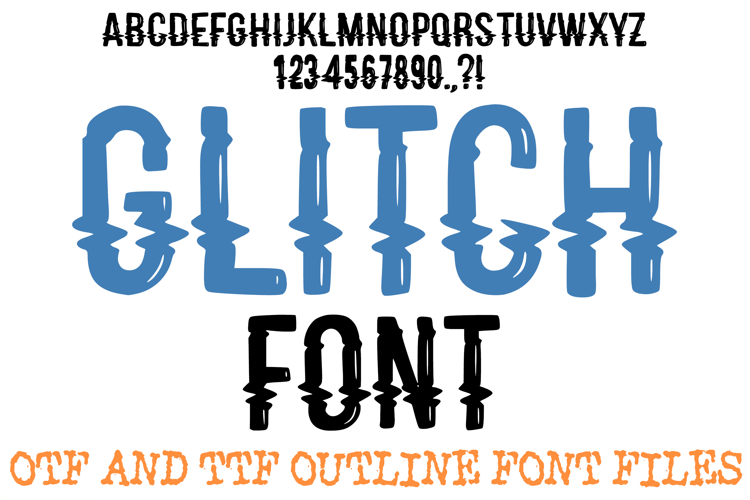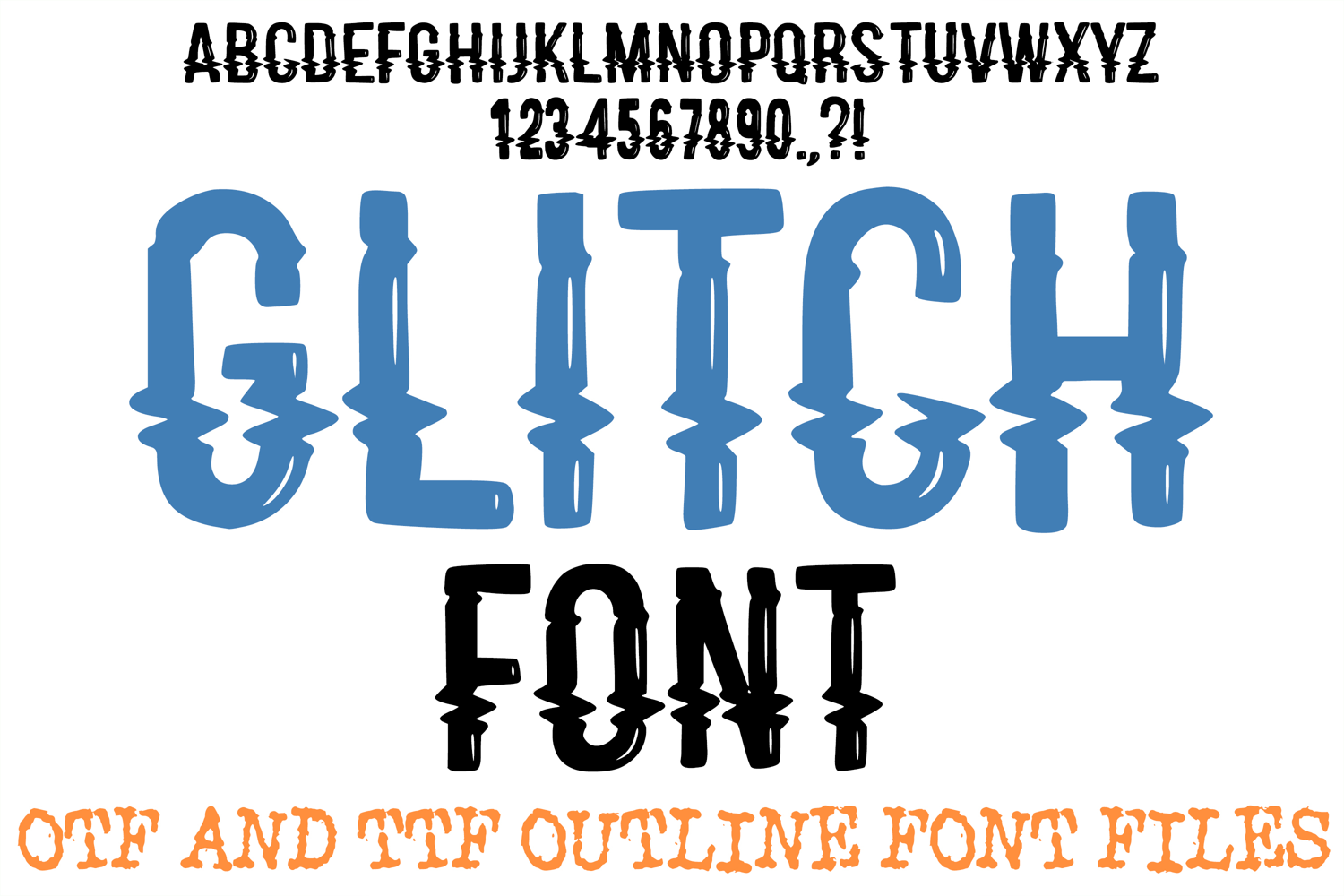
The Glitch Font is an energetic, high-impact display typeface that masterfully fuses casual, hand-drawn bubble lettering with a sharp, digital distortion effect. Characterized by a crisp horizontal slice directly through the center of each letter and number, this font perfectly mimics a sudden screen malfunction or video transmission error. It is a premier choice for designers creating gaming channel overlays, cyberpunk-themed apparel, music festival posters, skateboard graphics, and alternative streetwear branding.
The design masterfully pairs thick, marker-style silhouettes with clean vector cuts, giving the entire alphabet a bold graphic weight that effortlessly commands attention. By adding a digital shift to a friendly, rounded base structure, the font achieves a unique balance between playful street art and a modern, high-tech counter-culture aesthetic. Whether you are building a prominent heading for a tech vlog, designing eye-catching custom decals, or creating standout merchandise layouts, this typeface injects a dynamic, scrambled energy into your visual toolkit.
Sharp Horizontal Signal Shift: The clean, displaced slice through the middle of each character creates a highly recognizable, authentic screen distortion effect.
Heavy Marker Display Weight: Ultra-bold, plump outlines ensure your headers, titles, and logos stand out prominently on dark backdrops and printed fabrics.
Fusing Organic and Digital Shapes: The contrast between smooth, hand-drawn bubble curves and jagged technical cuts delivers a striking, modern look.
Excellent Legibility and Impact: Despite the heavy visual disruption, the base anatomy of each letter remains highly legible for dominant display layouts.